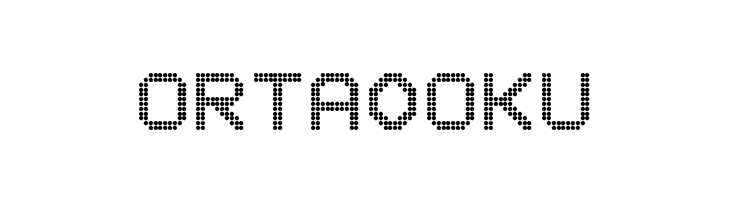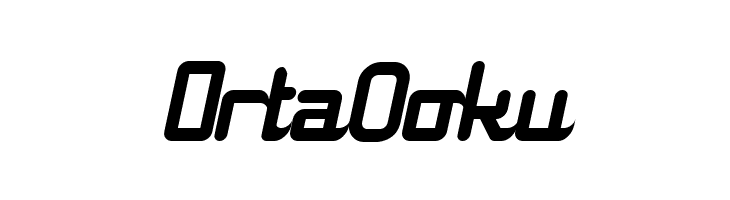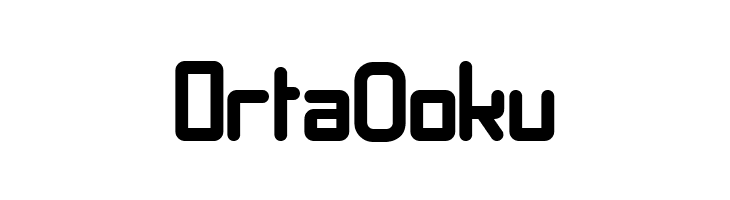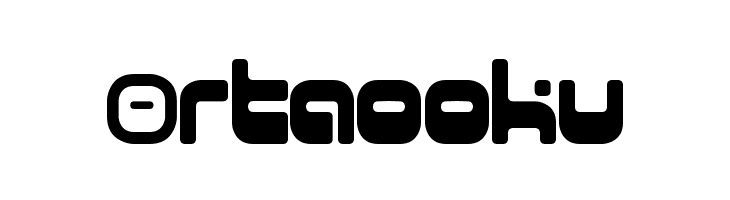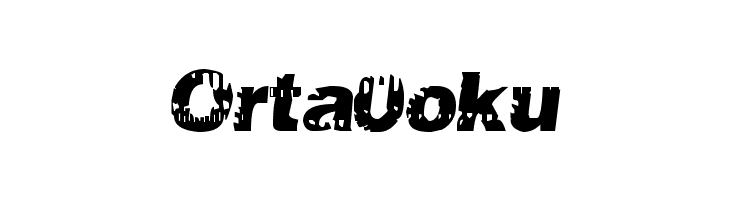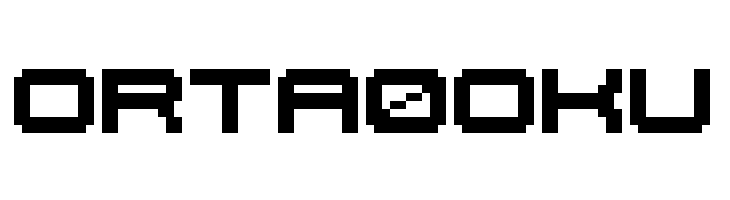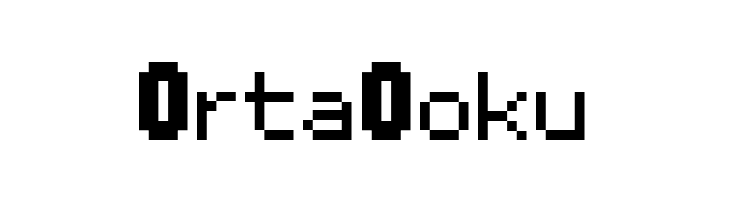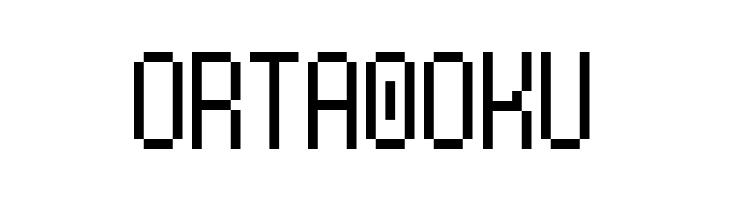
• 106 Beats That
A bold, textured font with a grunge-like, dynamic style.
• 10mal12Lampen
A dot-matrix style font with a retro digital appearance.
• 10pt Chaos
A bold, chaotic font with jagged, puzzle-like characters.
• 11.20
A bold, rounded font with a futuristic and playful style.
• 11px2bus
A bold, pixelated font with a retro digital style.
• 11px3bus
• 11pxbus
A pixelated, retro-style font with a digital, geometric appearance.
• 11S01 Black Tuesday
A modern, geometric font with rounded edges and bold, uniform strokes.
• 11S01 Black Tuesday Italic
A bold, italic, and modern font with rounded characters and a dynamic style.
• 11S01 Black Tuesday Offset
A bold, geometric font with a 3D offset shadow effect.